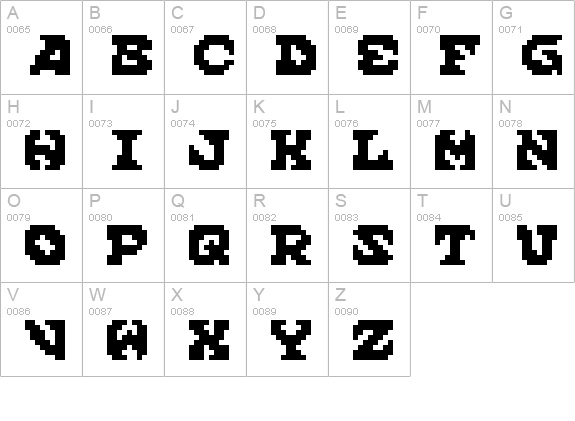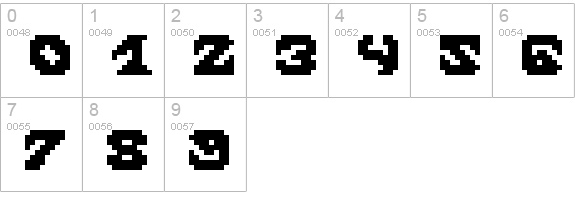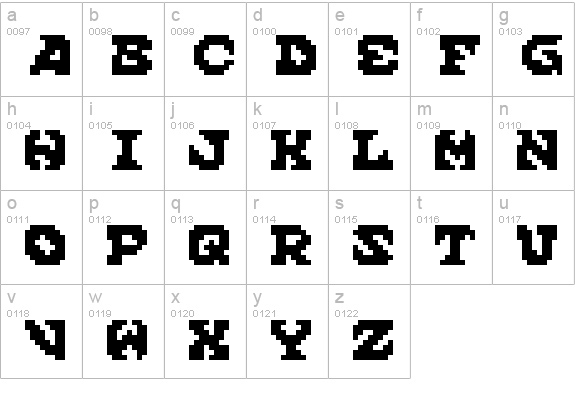
Scream When You're Ready To Die Regular is the standard, neutral variant in the Scream typeface family \xE2\x80\x94 well suited to general body text, paragraphs, and standard typographic work.
"Scream When You're Ready To Die Regular font is a bold and eye-catching typeface designed for those who want to make a statement with their text. With its strong, edgy appearance, this font is perfect for adding a touch of drama to your designs. Whether you're creating posters, album covers, or social media graphics, Scream When You're Ready To Die Regular font will help your message stand out. This font is freely available to download at FontsMarket.com, making it easy to access and use in your projects. Add a touch of intensity and personality to your designs with Scream When You're Ready To Die Regular font today!"